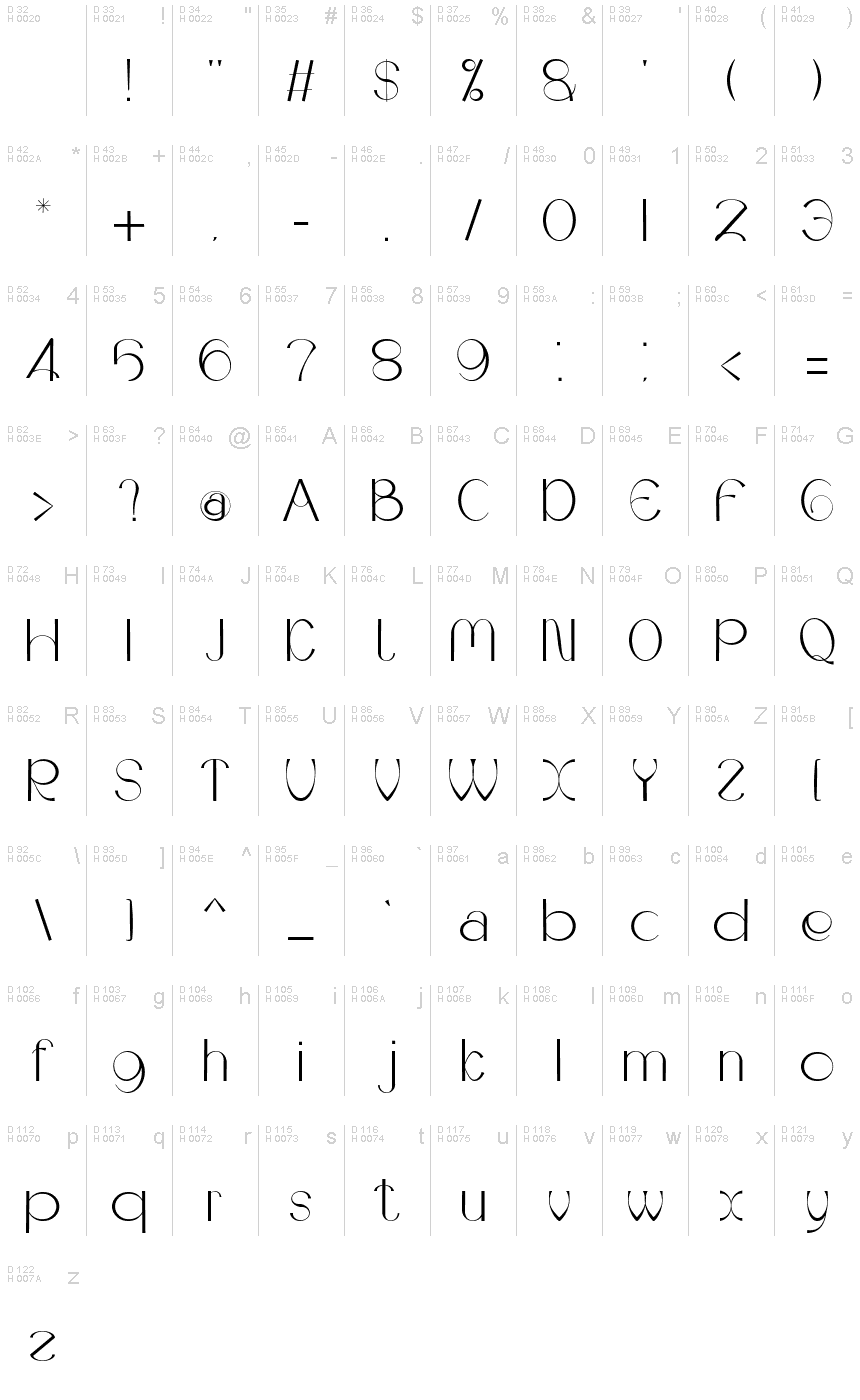
Redney
Redney is a modern display font designed by Muksal Creative in 2021. With its light weight, this sleek font is perfect for various projects such as creating logos, posters, and web designs. It's also ideal for crafting unique titles and headlines that stand out!